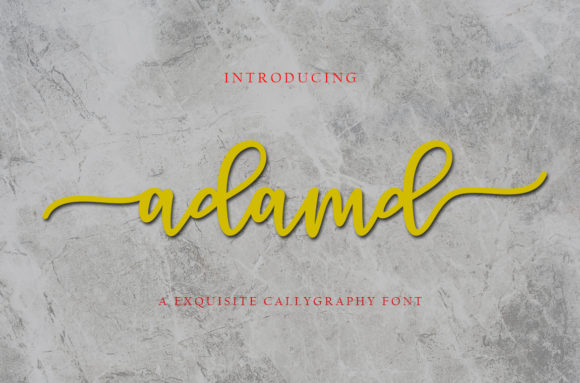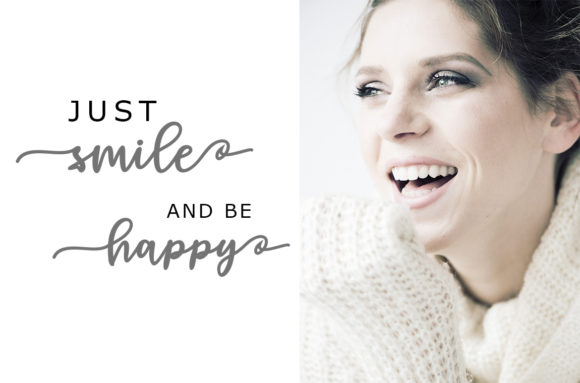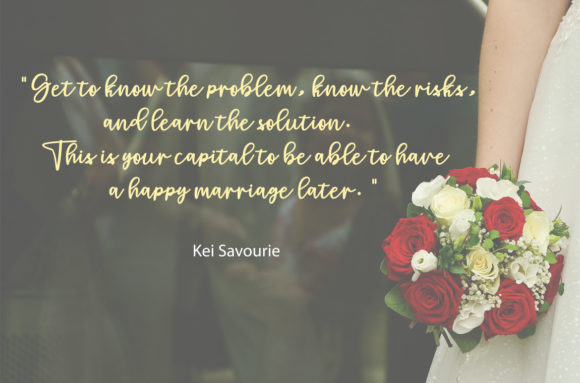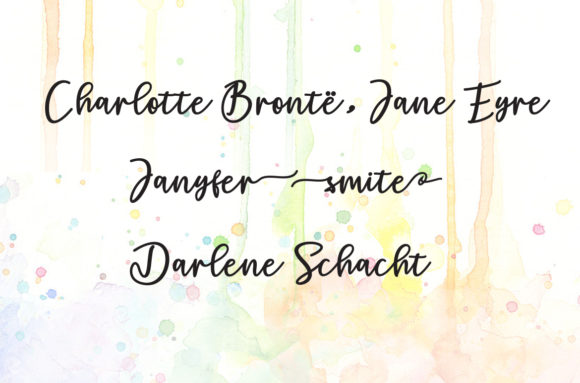
Adamd Font
About Adamd Font
Adamd is an incredibly modern and simple handwritten font with an authentic charm. Get inspired by its personal charm, and turn any design project into a stand out!